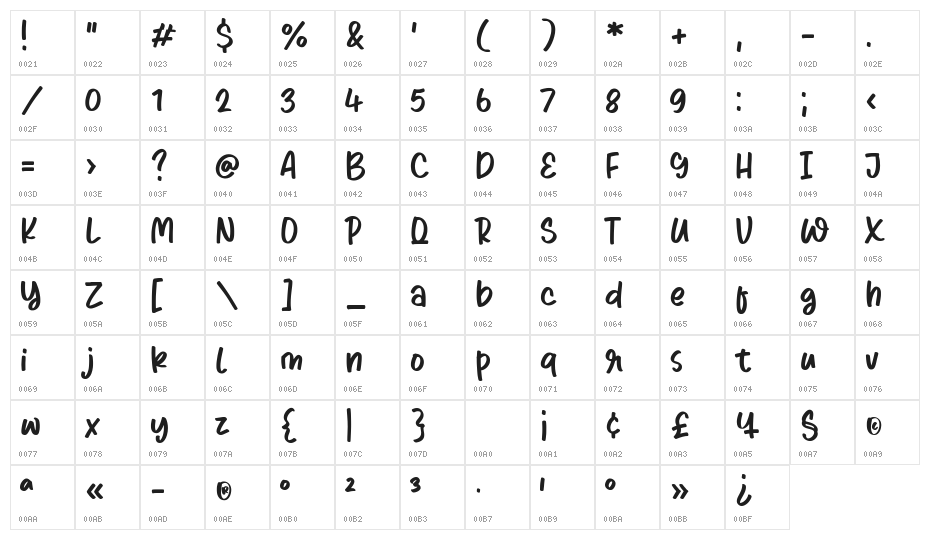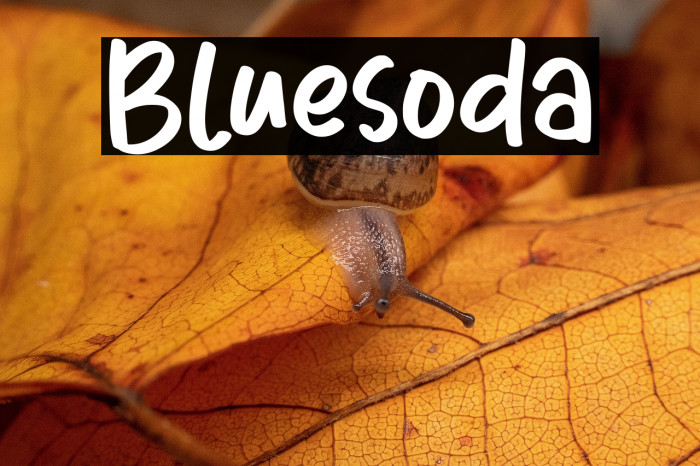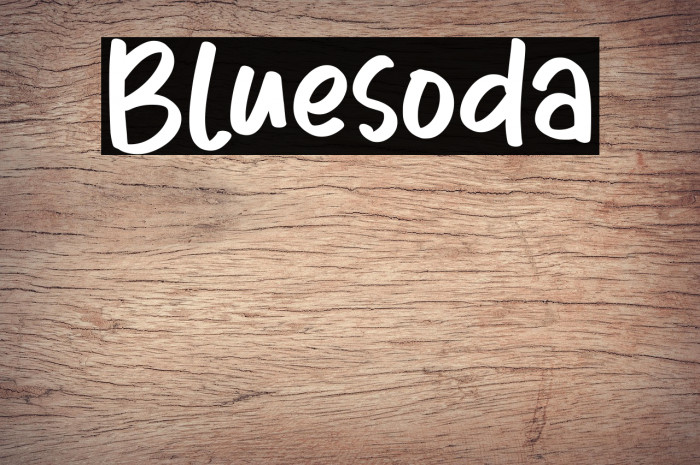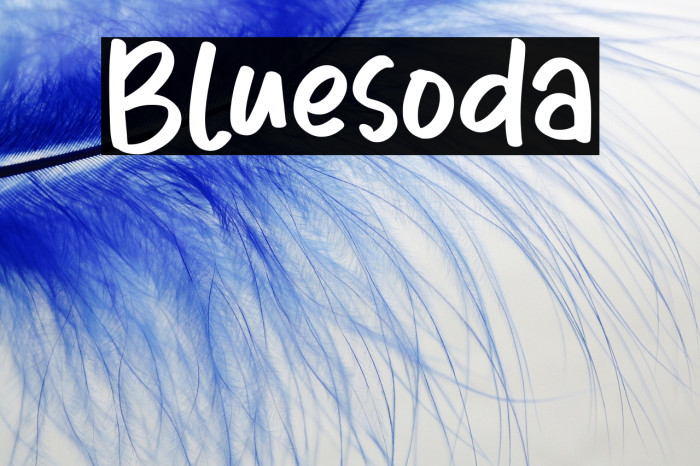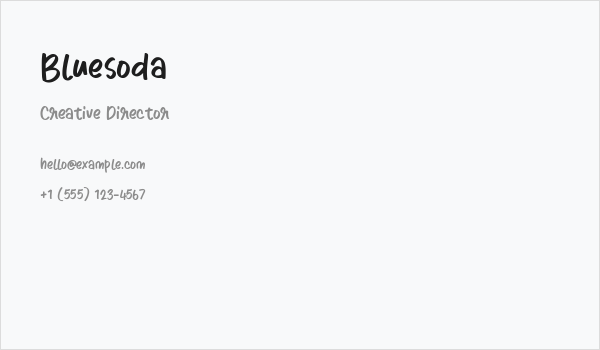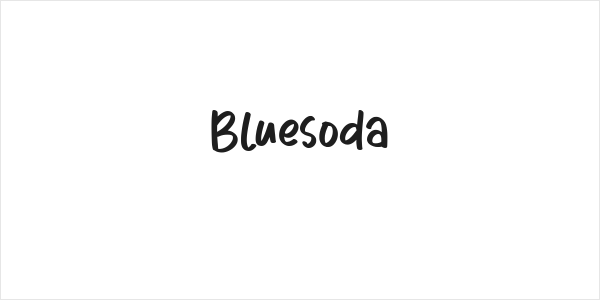
Bluesoda Font
Bluesoda Description
This playful and energetic font features a handwritten style with bold, rounded strokes that give it a friendly and approachable appearance. The characters are slightly irregular, adding a personal and casual touch. The uppercase letters are tall and slightly narrow, while the lowercase letters maintain a consistent height, contributing to a cohesive look. The numbers and special characters follow the same lively style, making the font versatile for various uses. Its informal nature makes it ideal for creative projects that require a touch of whimsy and personality.
| Proposed Projects | Ideal for greeting cards, children's books, playful branding, and social media graphics. |